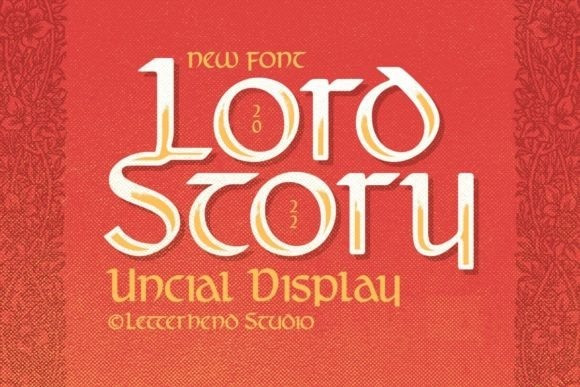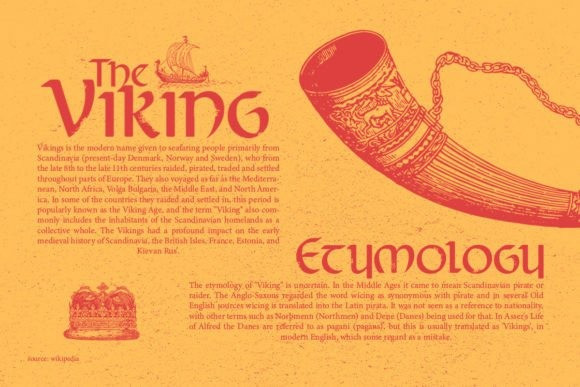
Lord Story Font
Lord Story is a cool display font with a unique medieval theme. With its historical and romantic charm, this font will be a great addition to your fonts library as it has the potential to elevate any creation.